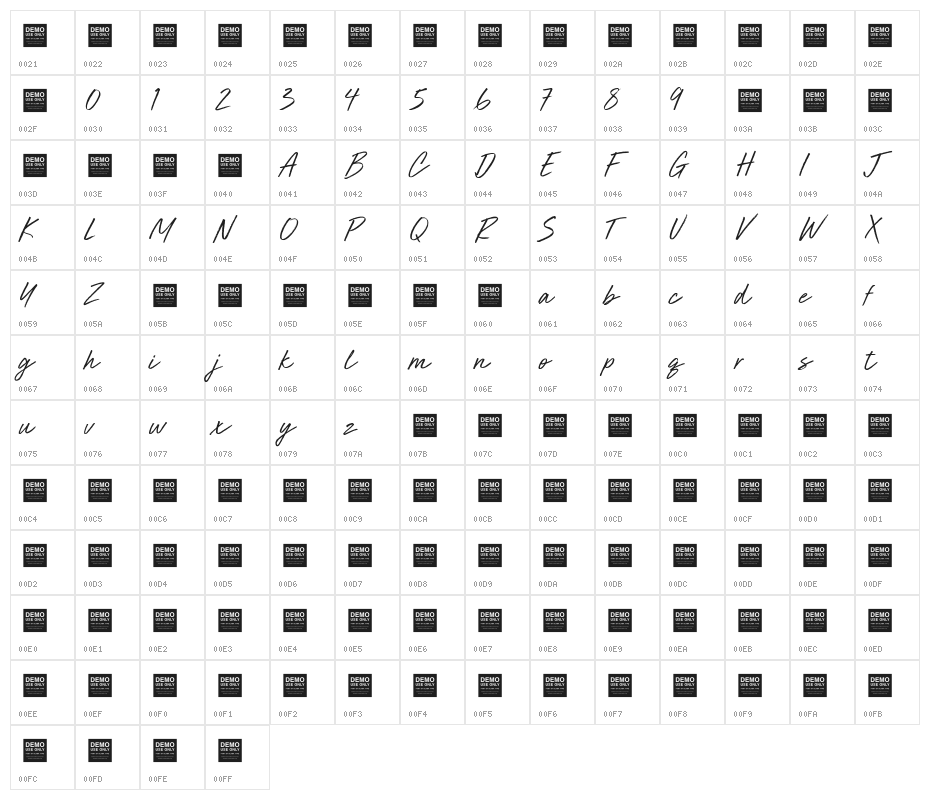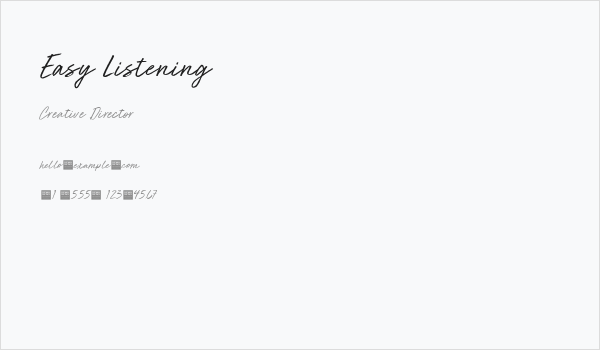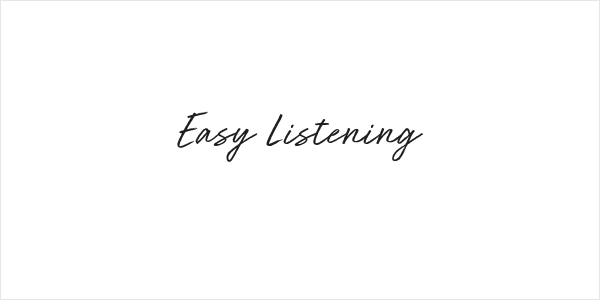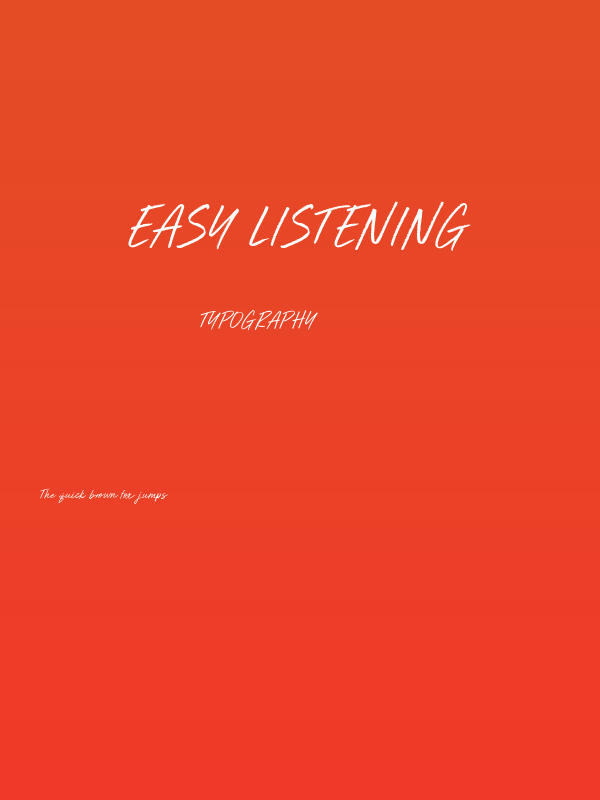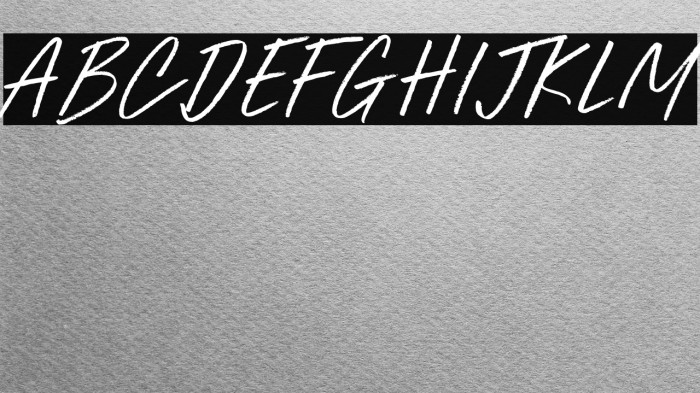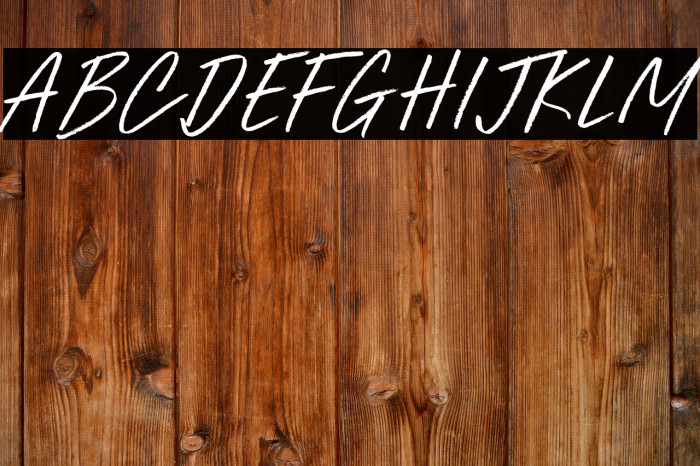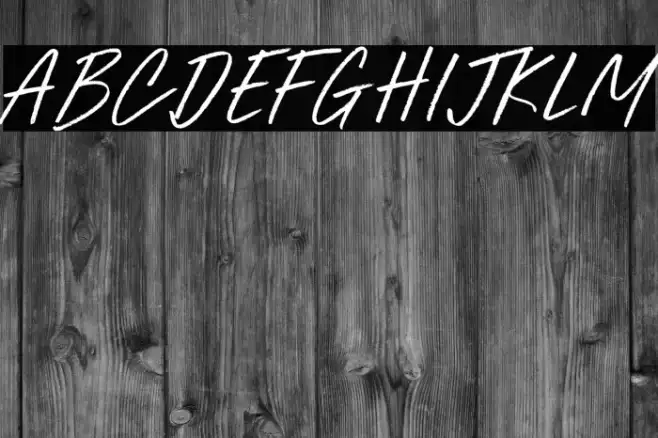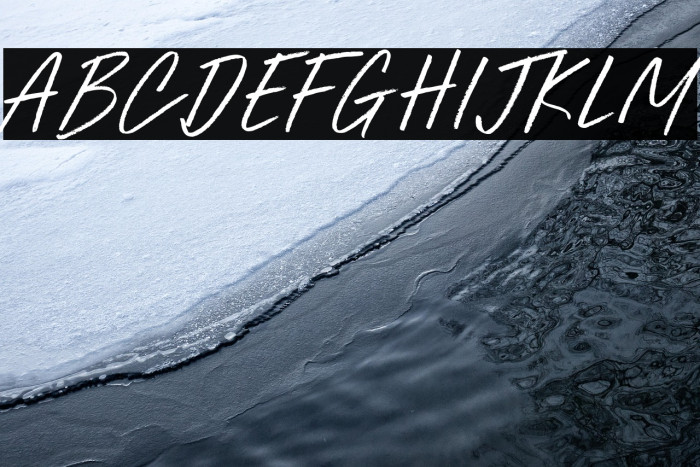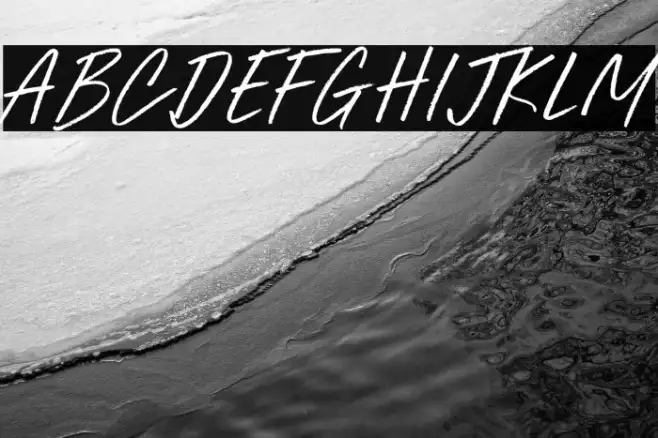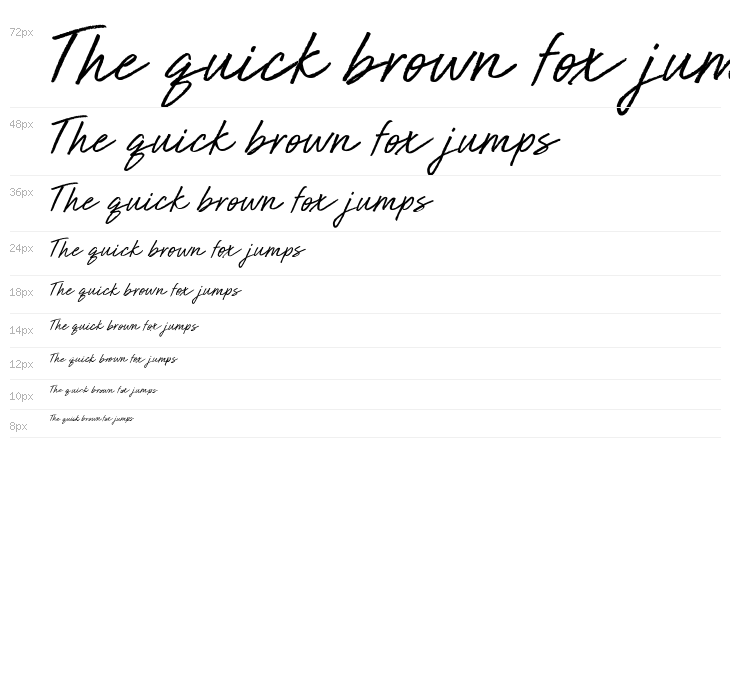
Easy Listening Font
Easy Listening Description
This font exudes a casual and handwritten style, characterized by its fluid and natural strokes. The letters are slightly slanted, giving it a dynamic and lively appearance. The uppercase and lowercase letters maintain a consistent flow, with rounded edges and smooth curves that mimic the look of handwriting. The numbers and special characters follow the same aesthetic, ensuring uniformity across all characters. This font is perfect for projects that require a personal touch or an informal vibe.
| Use Case | Logos, Headlines, Social media posts |
| Proposed Projects | Ideal for greeting cards, personal letters, casual branding, and social media graphics. |